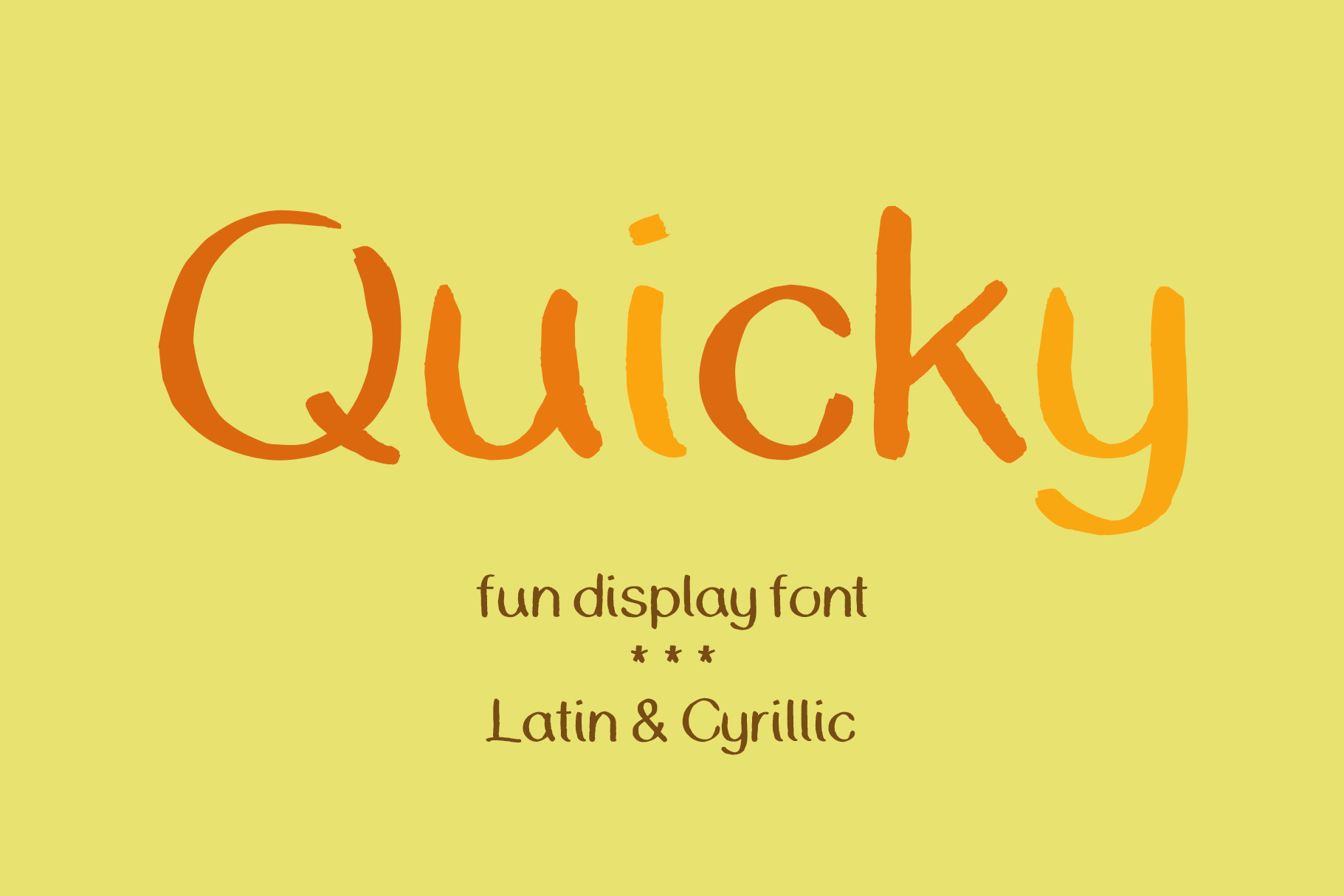
Quicky - fun handwritten font
Quicky is fun handwritten font for your playful projects
- Uppercase and lowercase letters
- Multilingual Support (Latin - English, German, Romanian; Cyrillic - Ukrainian, Russian)